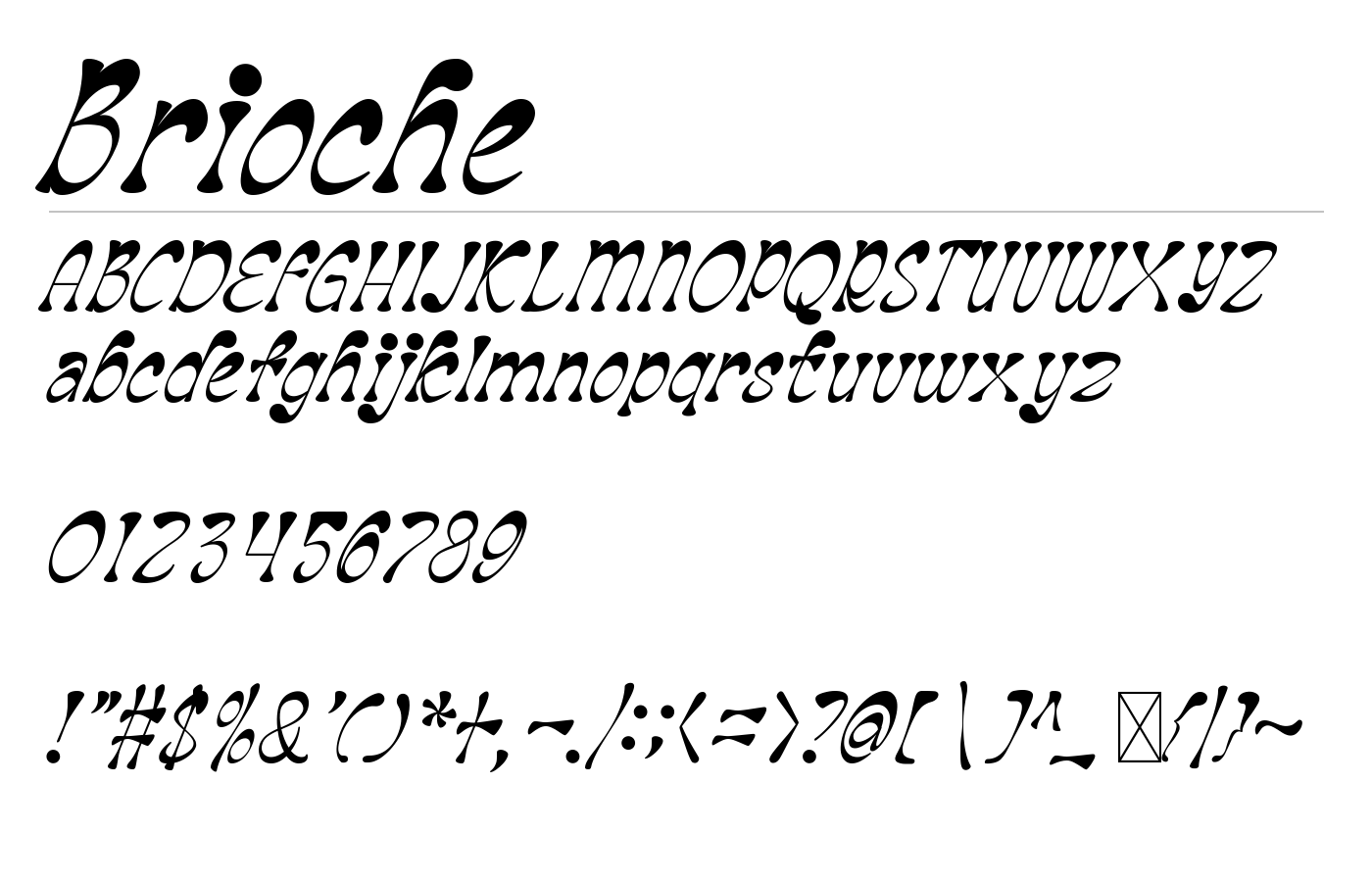
Brioche is an elegant, serif-inspired script font with a unique calligraphic style characterized by its high contrast between thick and thin strokes and graceful, flowing curves. Its slightly condensed width and moderate x-height give it a sophisticated and refined appearance, perfect for luxury branding, fashion, or editorial headlines where a stylish, artistic flair is desired. This font works well in contexts that seek to convey elegance and creativity while maintaining readability and visual impact.
Brioche Font
About Brioche Font